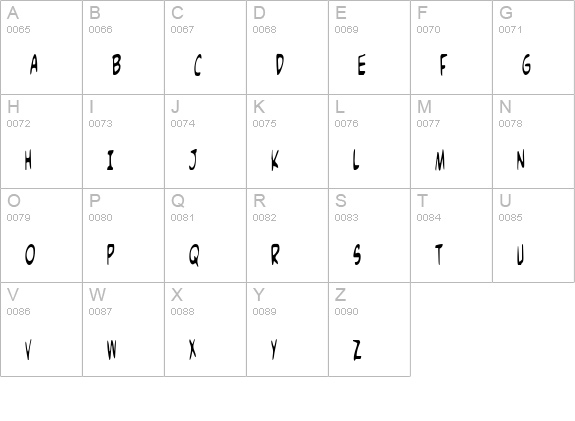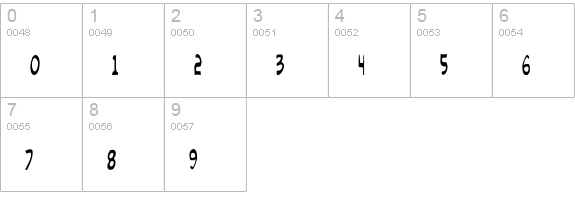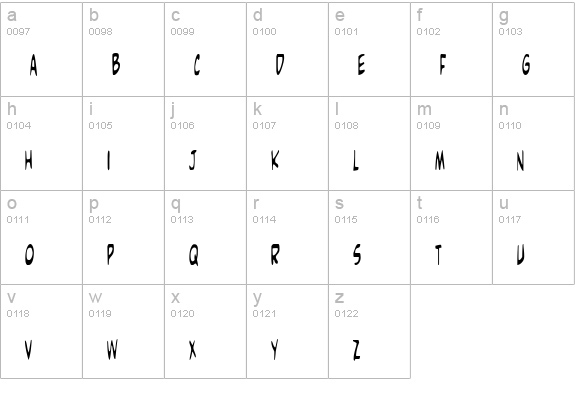
Comic Book Commando Condensed Font Details
Comic Book Commando Condensed is a comfortable, highly readable, condensed-width variant in the Comic typeface family \xE2\x80\x94 well suited to long-form body text, articles, and editorial content.
Comic Book Commando Condensed font is a bold and action-packed typeface inspired by classic comic book lettering. With its dynamic and edgy design, this font is perfect for creating eye-catching titles, headlines, and graphics that jump off the page. The condensed style adds a sense of urgency and energy to any project, making it ideal for superhero-themed designs or retro comic book layouts. Best of all, Comic Book Commando Condensed font is available for free download at FontsMarket.com. Whether you're a graphic designer, comic book enthusiast, or just looking to add a touch of excitement to your projects, this font is a must-have addition to your collection. Embrace the power of Comic Book Commando Condensed font and unleash your creativity today!